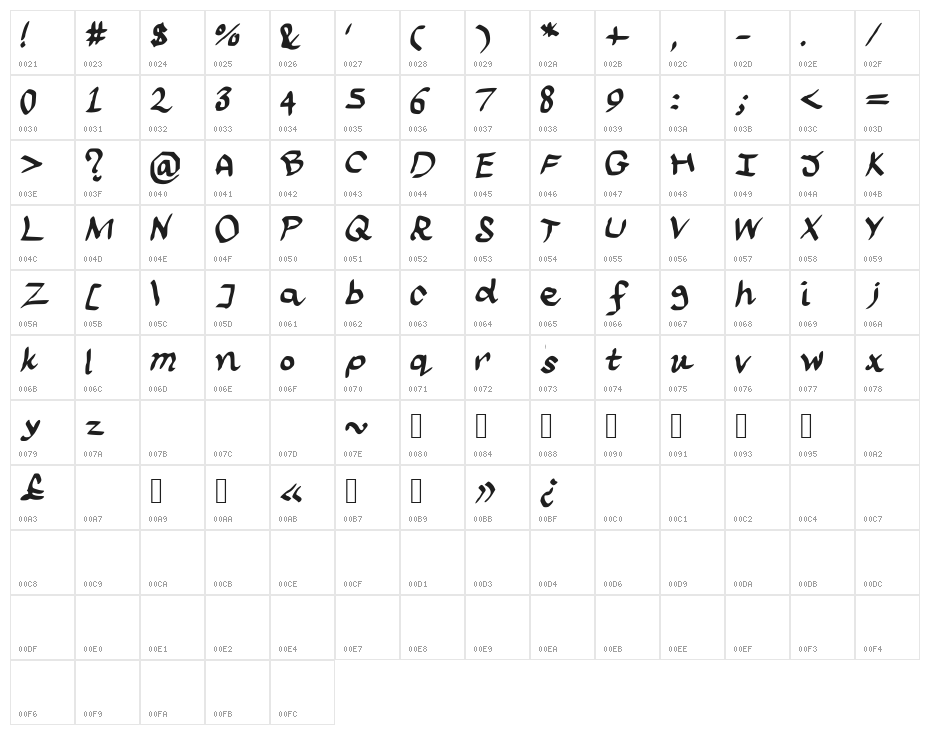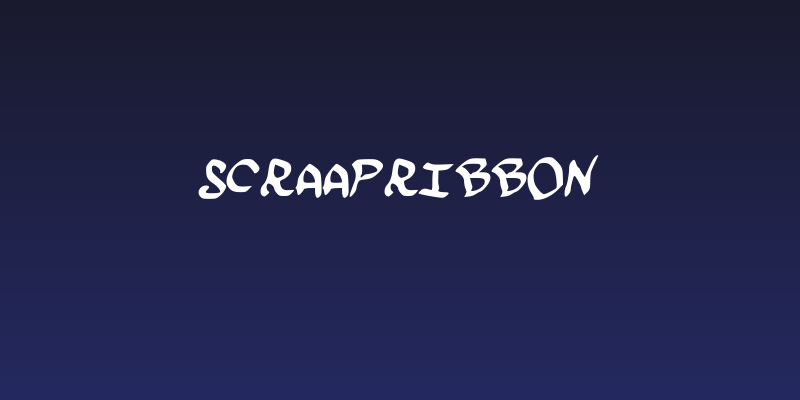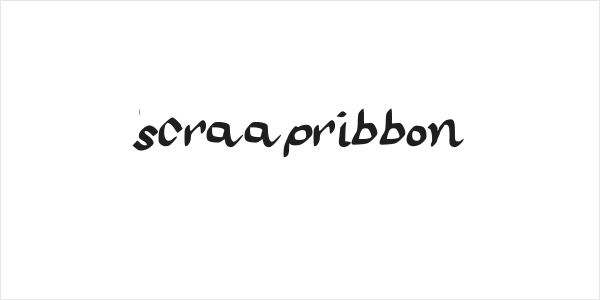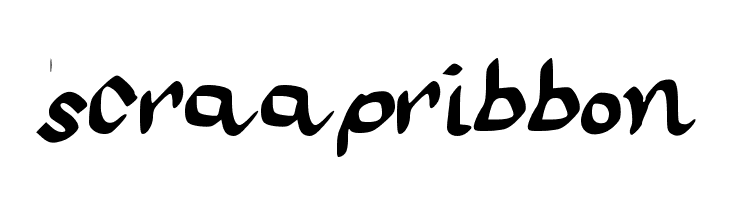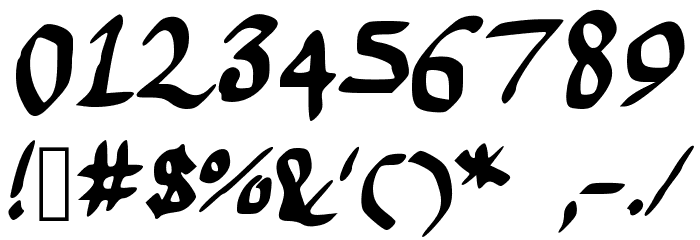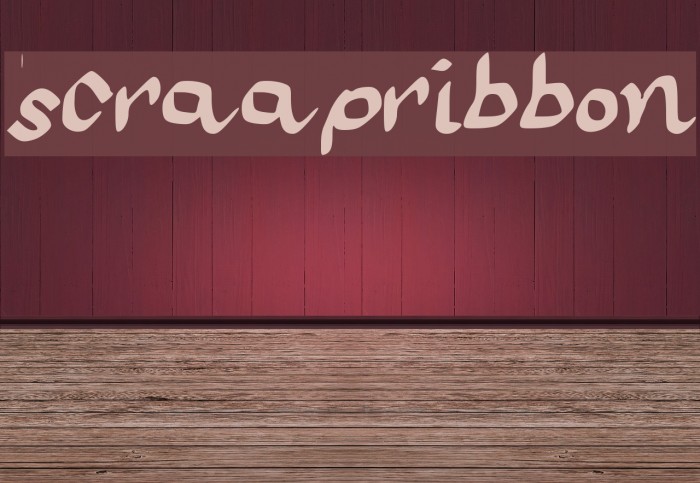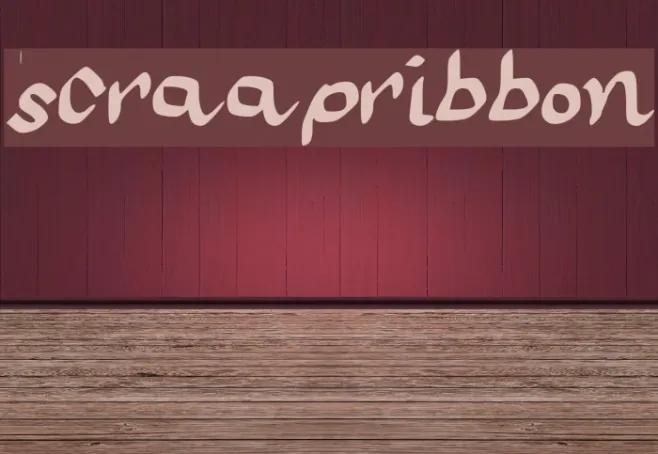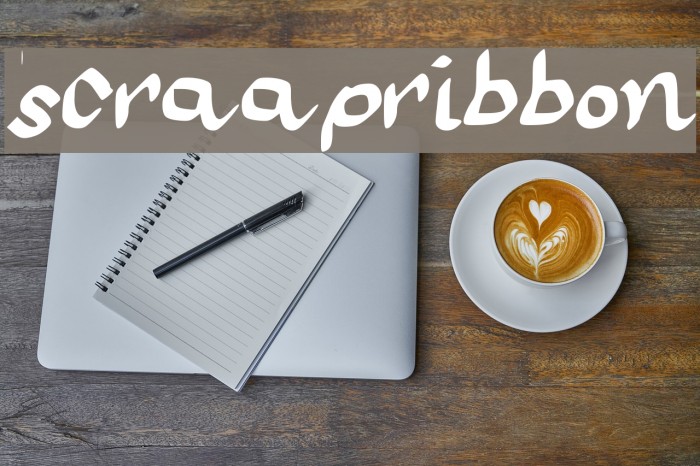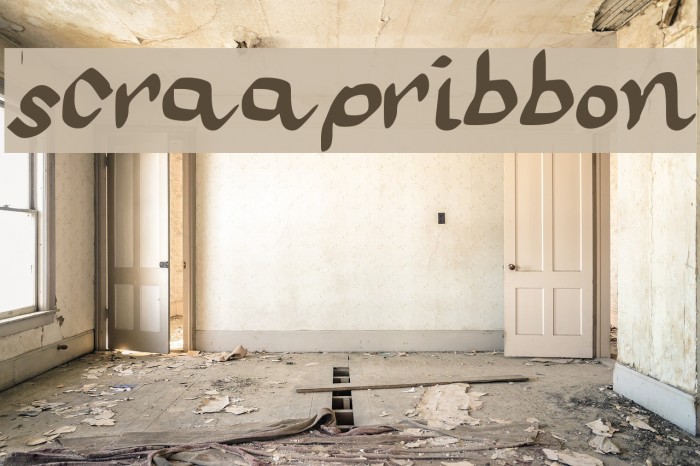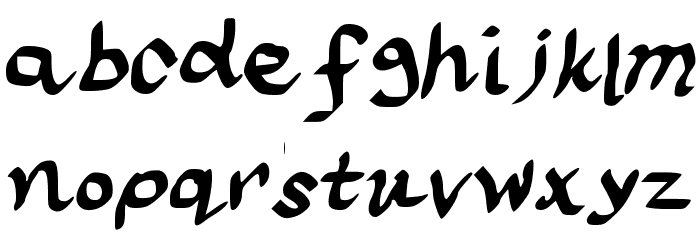
scraapribbon Font
scraapribbon Description
This font exhibits a dynamic and fluid style, reminiscent of handwritten script with a modern twist. The characters are bold and slightly slanted, giving a sense of motion and energy. The uppercase letters are distinct with sharp angles and curves, while the lowercase letters maintain a consistent flow, enhancing readability. Numbers and special characters follow the same stylistic cues, ensuring uniformity across all glyphs. The overall appearance is both artistic and legible, making it suitable for creative projects that require a personal touch.